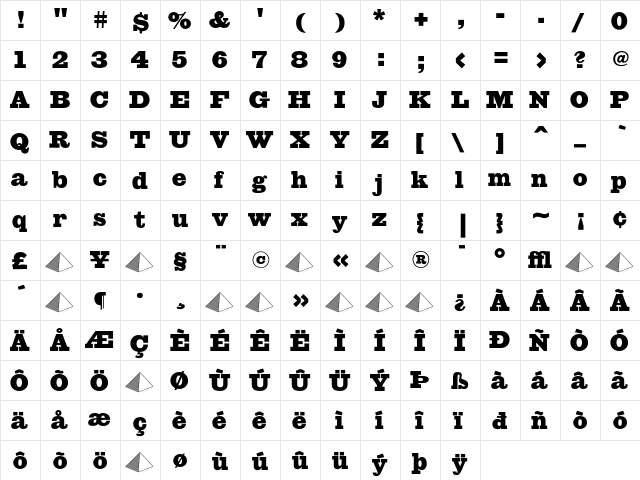
Giza FiveFive
Design Context for Giza Typeface
Giza is a composed and adaptable typeface that performs quietly and consistently across a wide range of design contexts.